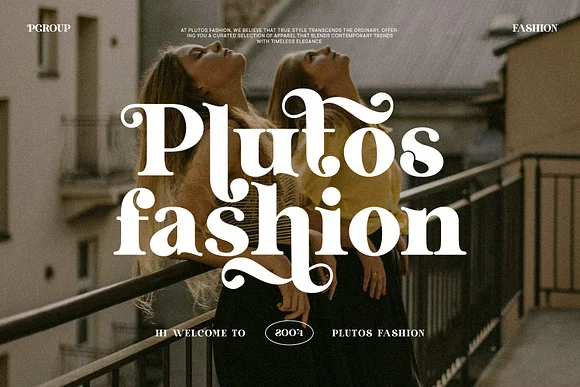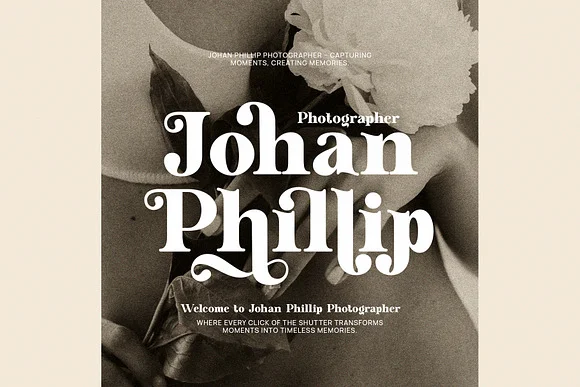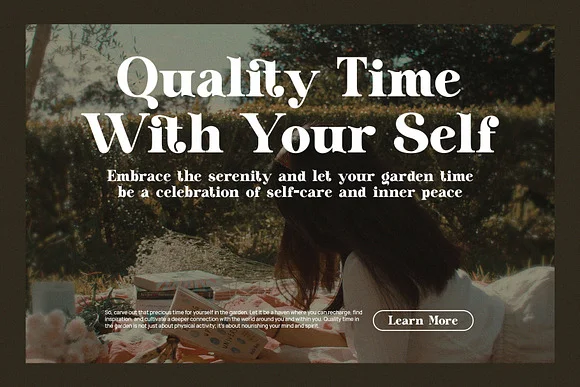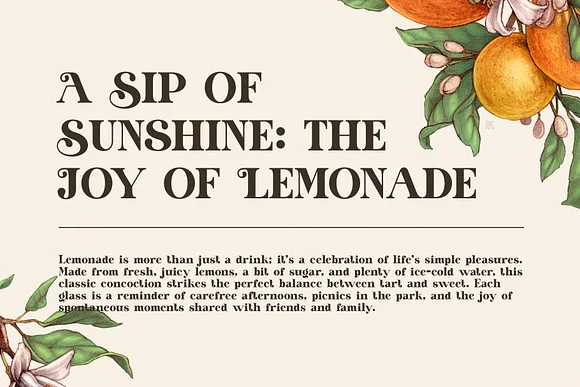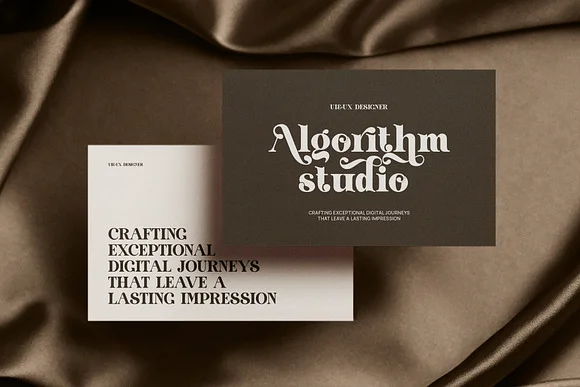
Brigle Serif Font
Brigle Serif is a thoughtfully constructed typeface that performs equally well in display and body text settings.
Its proportions suit a wide range of uses: website headers, printed flyers, restaurant menus, annual reports, and product packaging.